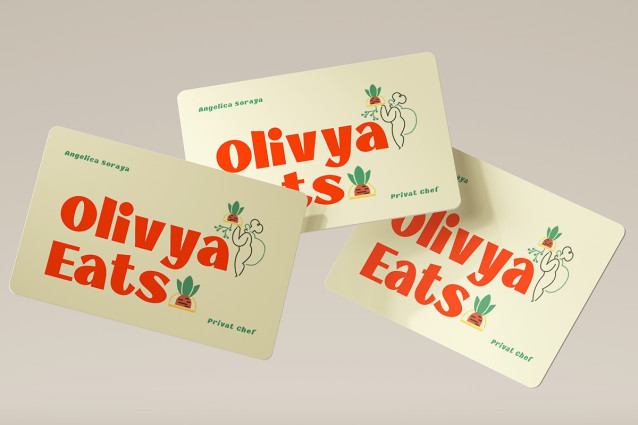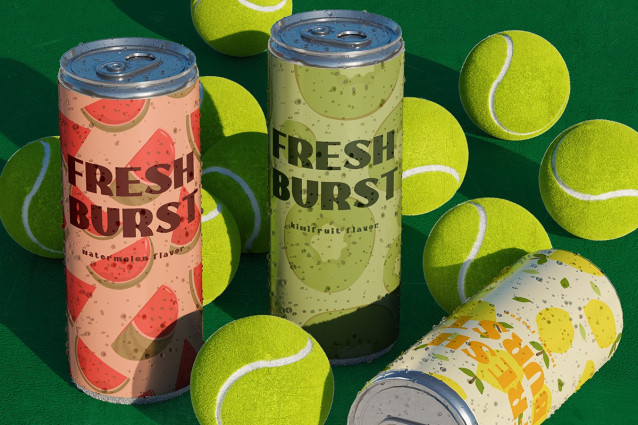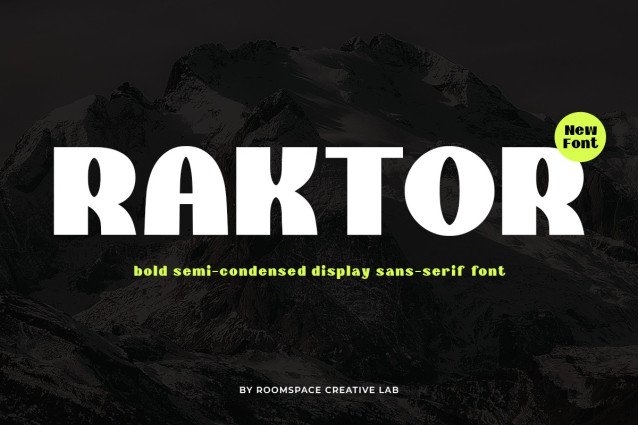
Raktor Typeface
Raktor Typeface – a bold semi-condensed sans serif display font designed to make a strong visual impact. With its thick, powerful letterforms and geometric styling, Raktor is perfect for creating eye-catching headlines, bold posters, modern branding, and standout typography for digital or print design.
Raktor is more than just a font – it’s a design statement. The semi-condensed width gives it a unique look that works beautifully for projects that need a modern, clean, and impactful vibe. Whether you’re a graphic designer, brand specialist, or creative entrepreneur, Raktor will elevate your projects with its confident, strong presence.